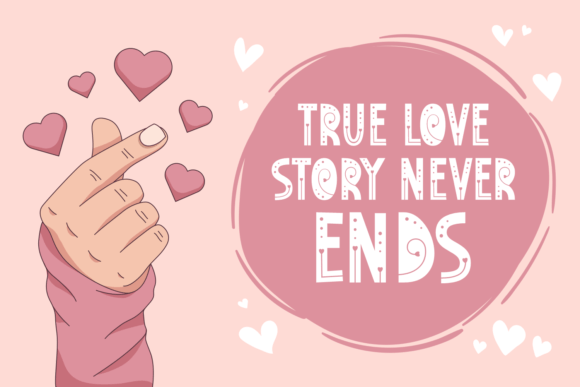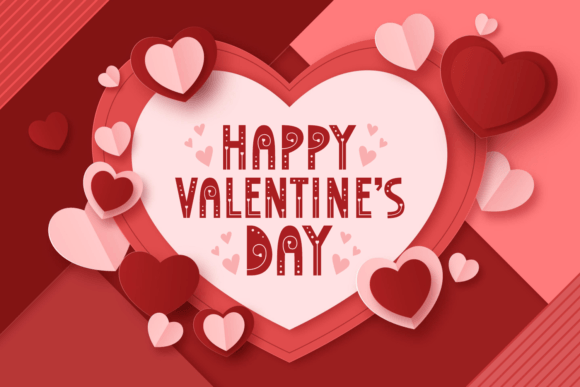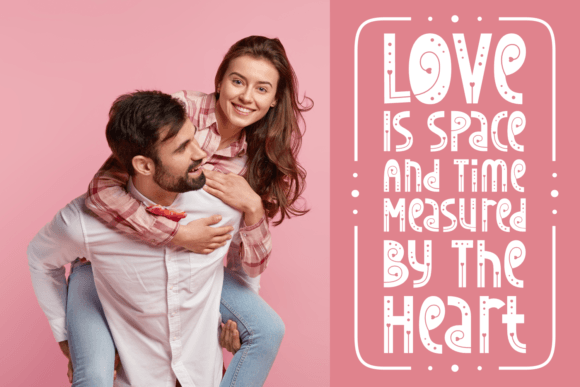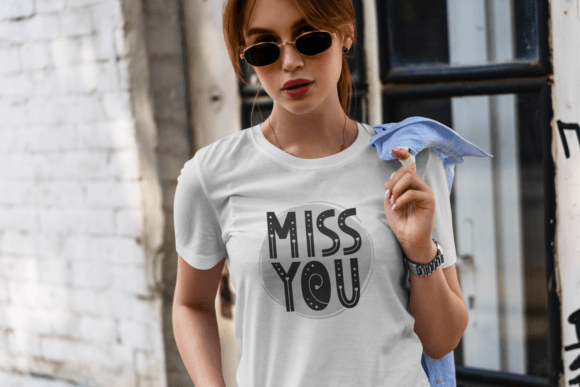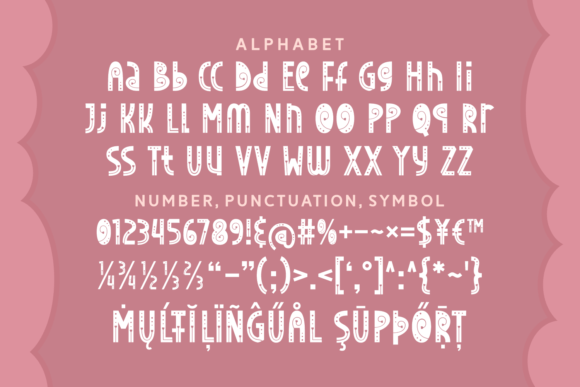
Introduction to Norita Font
Do you remember the moment when you finally found the perfect font to match your creative vision? It’s like stumbling upon a hidden treasure that elevates your project to the next level. For designers, this feeling is especially precious, and that’s exactly what the Norita Font promises to deliver.
With its charming heart details and decorations, the Norita Font is a design lover’s dream come true. Whether you’re working on a romantic typography project, a Valentine’s Day gift, or a wedding invitation, this lovely font is sure to add a touch of elegance and whimsy to your design. And the best part? It’s available for free download, making it an invaluable resource for any creative project.
As a high-quality design resource, the Norita Font is perfect for designers who want to add a personal touch to their work. Its transparent background and intricate details make it a great choice for designers who want to stand out from the crowd.
Key Features of Norita Font
- Part of a comprehensive font family, offering a wide range of styles and weights to suit various design needs.
- Perfect for designers seeking a high-quality design resource with a touch of elegance and sophistication.
Honest Review: Norita Font
I recently had the chance to work with the Norita Font, and I must say it’s been a pleasant experience. This font is perfect for designers who want to add a touch of elegance to their creative projects.
- High quality: The Norita Font is designed to provide a clean and professional look, making it ideal for a variety of design projects.
- Limited styles: The Norita Font is available in a limited number of styles, which may not be suitable for designers who want a wide range of options.
- Not ideal for bold text: The font may not be the best choice for bold or large text, as it can become difficult to read.
Overall, I’m impressed with the Norita Font’s design and versatility. It’s a great resource for designers who want a high-quality font for their creative projects. While it may have some limitations, it’s definitely worth considering for your next design project.
Introduction to Norita Font
Norita Font is a versatile and high-quality design resource that can elevate your creative project to the next level. With its unique style and transparent background, it’s perfect for adding a touch of elegance to your designs.
Tips for Getting the Most Out of Norita Font
Here are some tips to help you get the most out of Norita Font:
- Experiment with different font sizes and styles to find the perfect combination for your design.
- Use the transparent background feature to create a seamless design.
- Combine Norita Font with other design elements to create a unique look.
Norita Font is perfect for:
- Business cards and marketing materials.
- Designing logos and branding materials.
Alternatives to Norita Font
Great Vibes Font is a high-quality, handwritten script font perfect for creative projects that require a touch of elegance and sophistication. It’s ideal for wedding invitations, event branding, and other design resources where a personal touch is needed. Great Vibes Font is available for free download and can be used with a transparent background to create a seamless design.
Compared to Norita Font, Great Vibes Font has a more refined and delicate feel, making it suitable for projects that require a softer approach. While Norita Font is great for bold and playful designs, Great Vibes Font excels in creating a sense of warmth and intimacy.